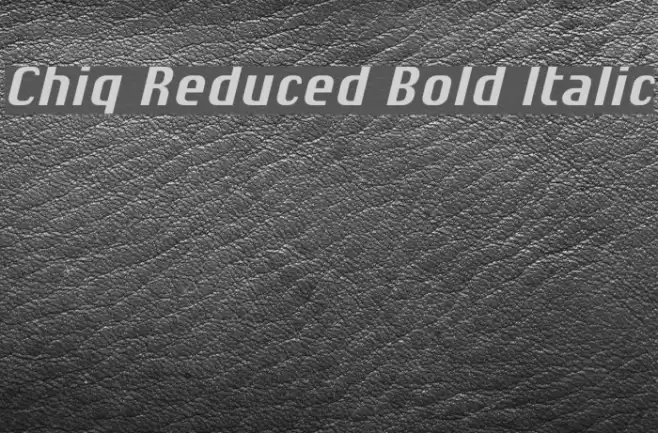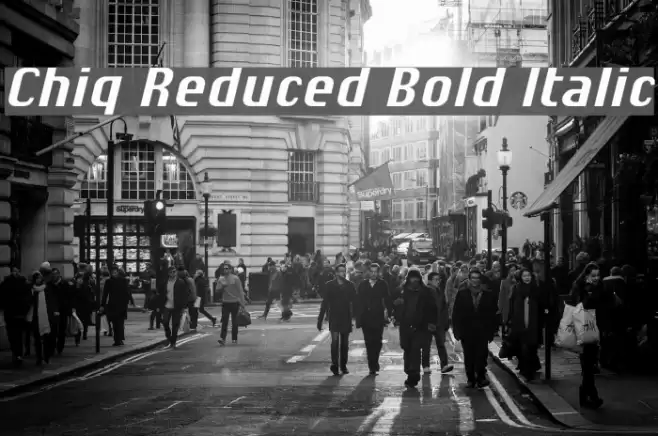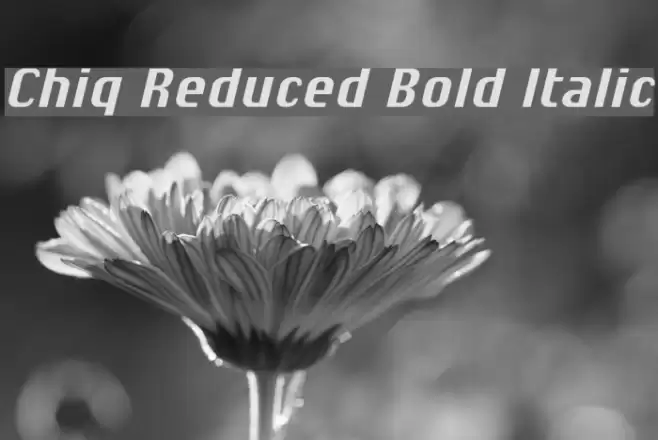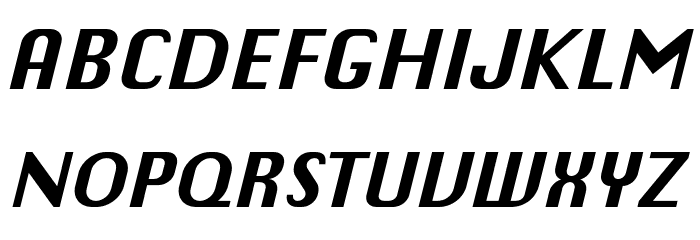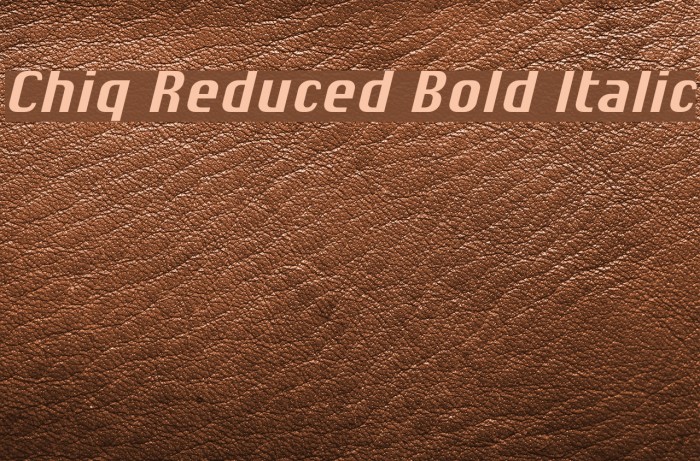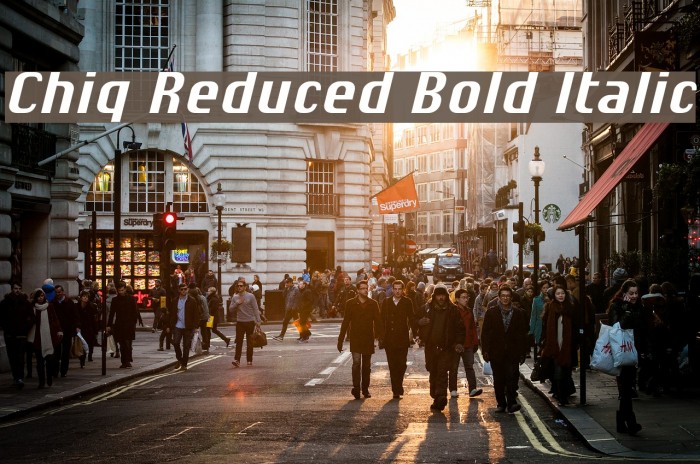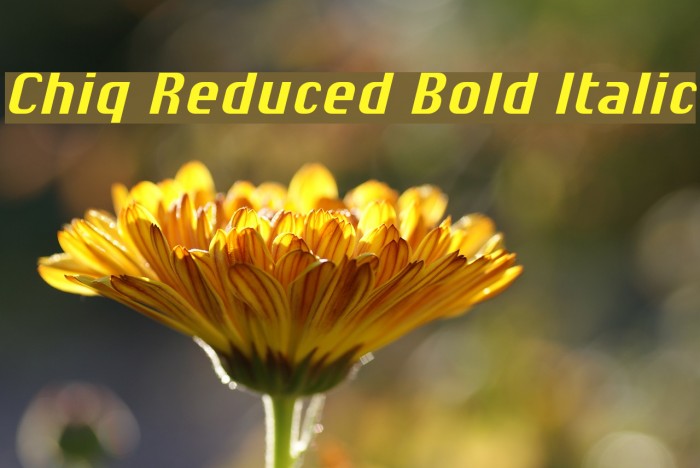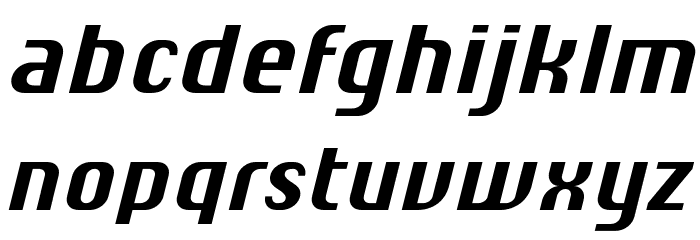
Chiq Reduced Bold Italic Font
Chiq Reduced Bold Italic Description
This font features a bold and italicized style with a modern and sleek appearance. The characters are slightly condensed, giving it a compact look while maintaining readability. The strokes are consistent and smooth, with a medium contrast that adds to its dynamic and energetic feel. The italic slant adds a sense of motion and fluidity, making it suitable for contemporary designs. The uppercase and lowercase letters are well-proportioned, and the overall design is clean and professional, making it versatile for various applications.
A bold, italicized font with a modern and sleek appearance from Uncategorized fonts.
- Proposed Projects: Ideal for branding, advertising, and editorial design where a modern and dynamic look is desired.
- Use Case: Headlines, Logos, Branding